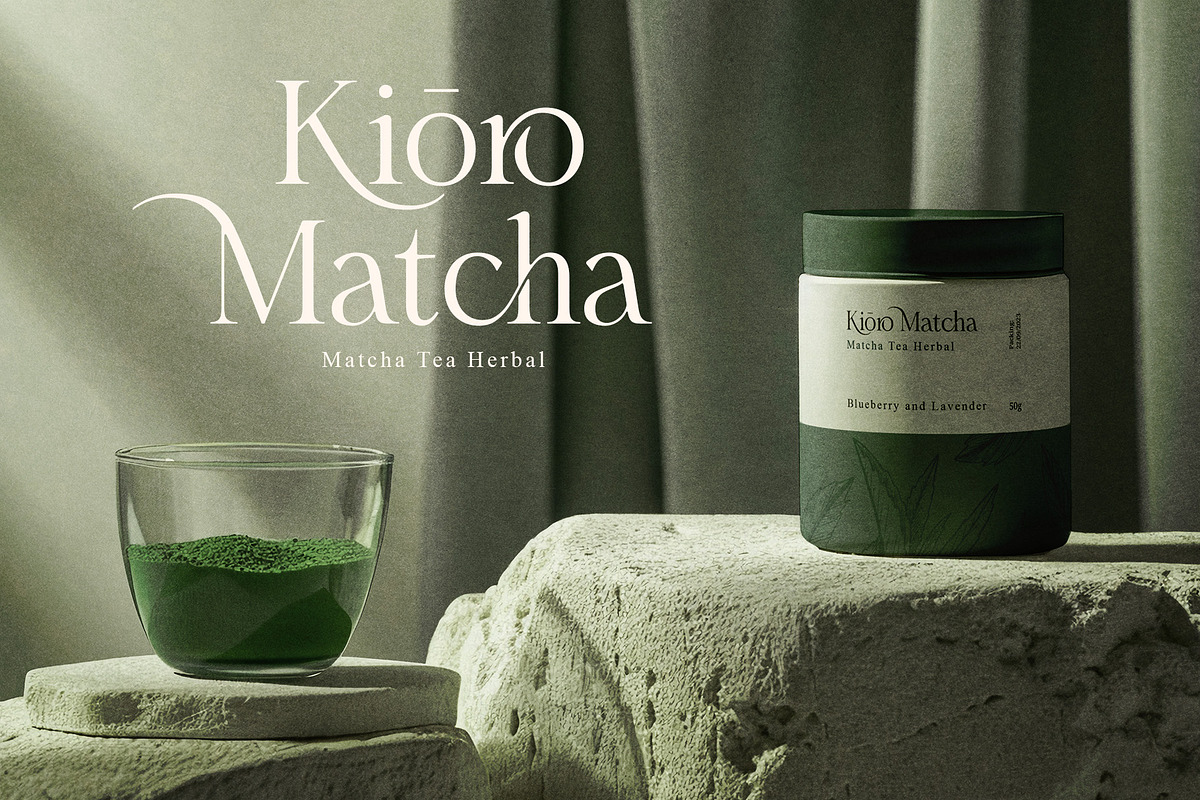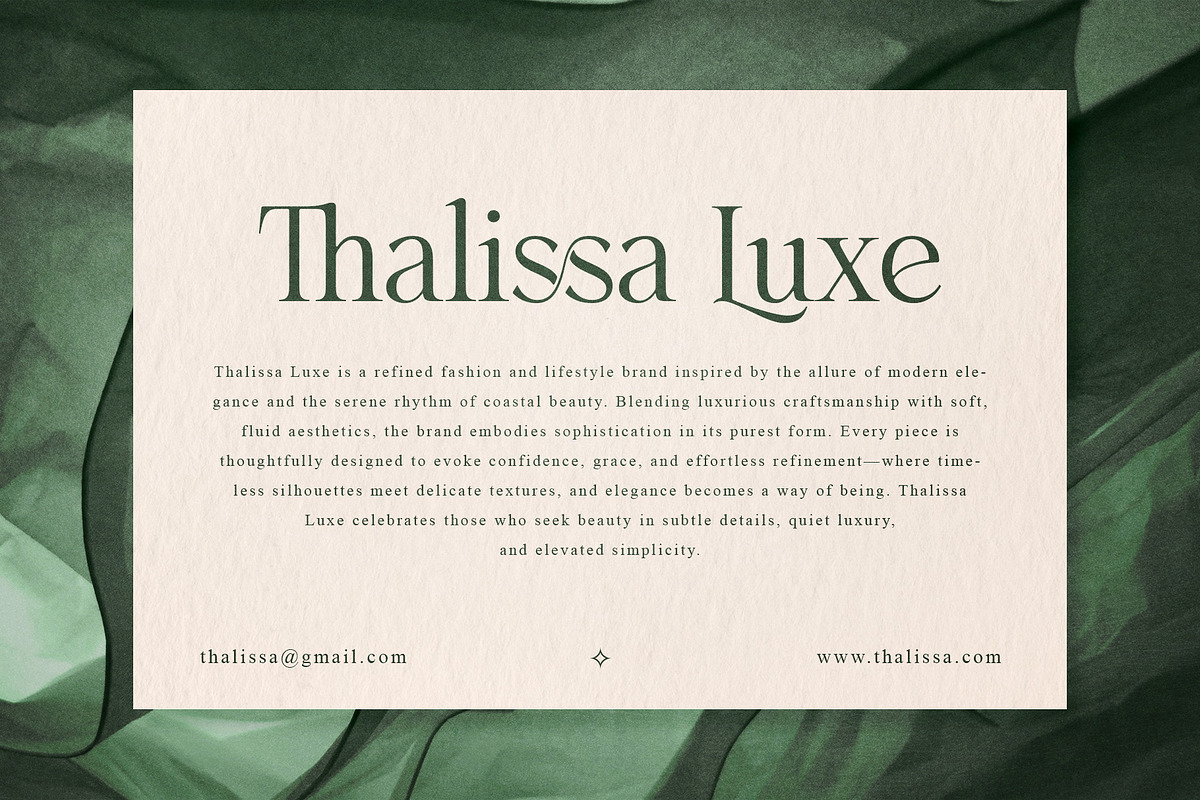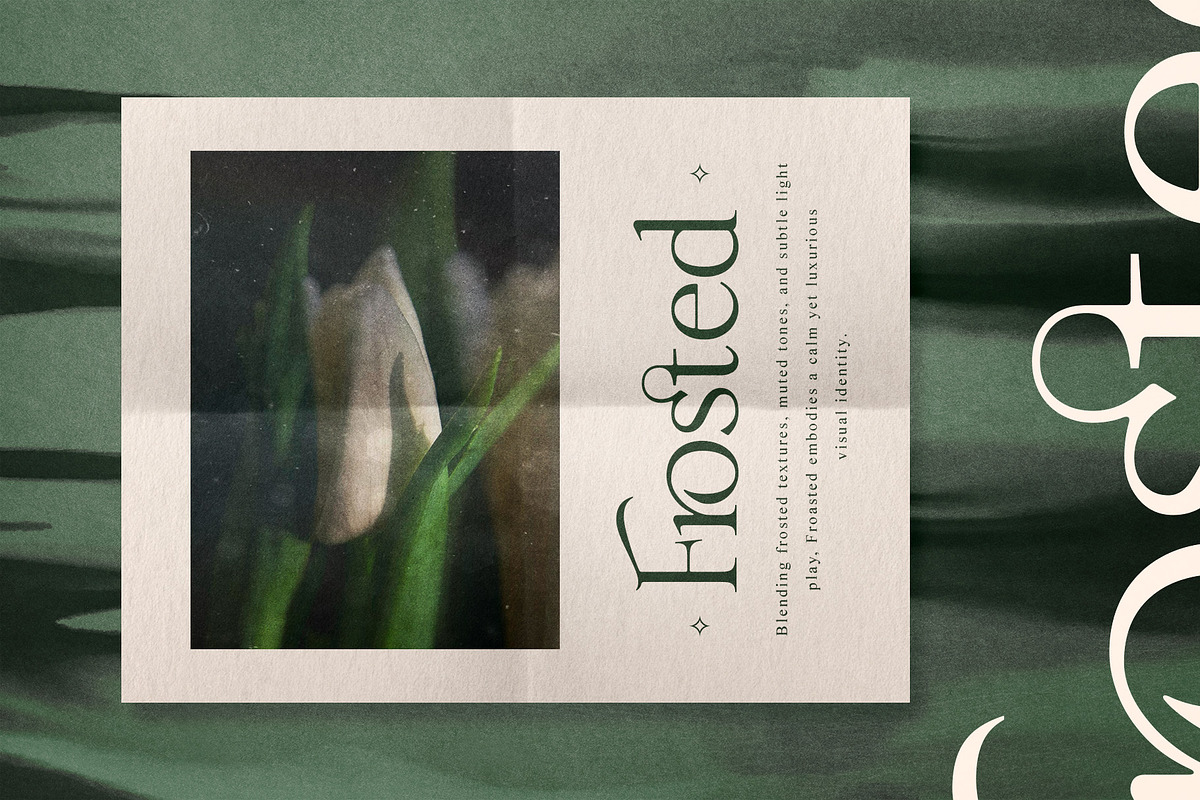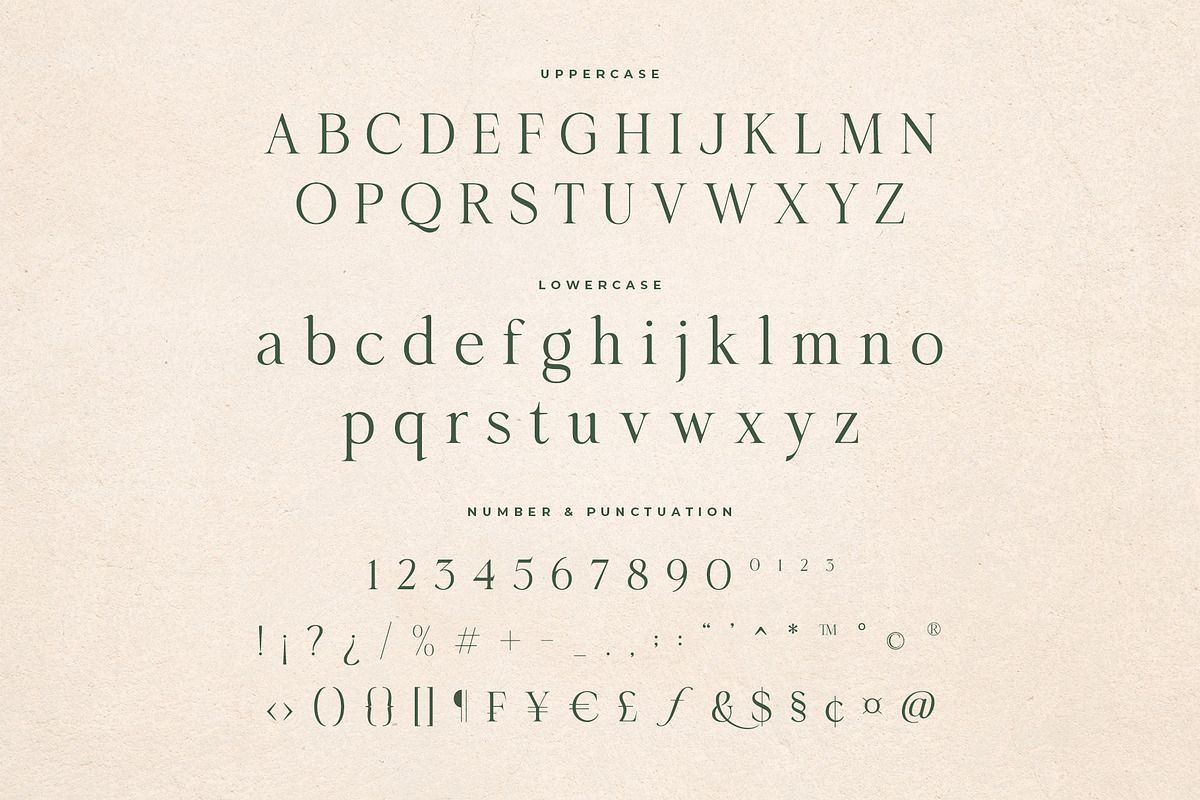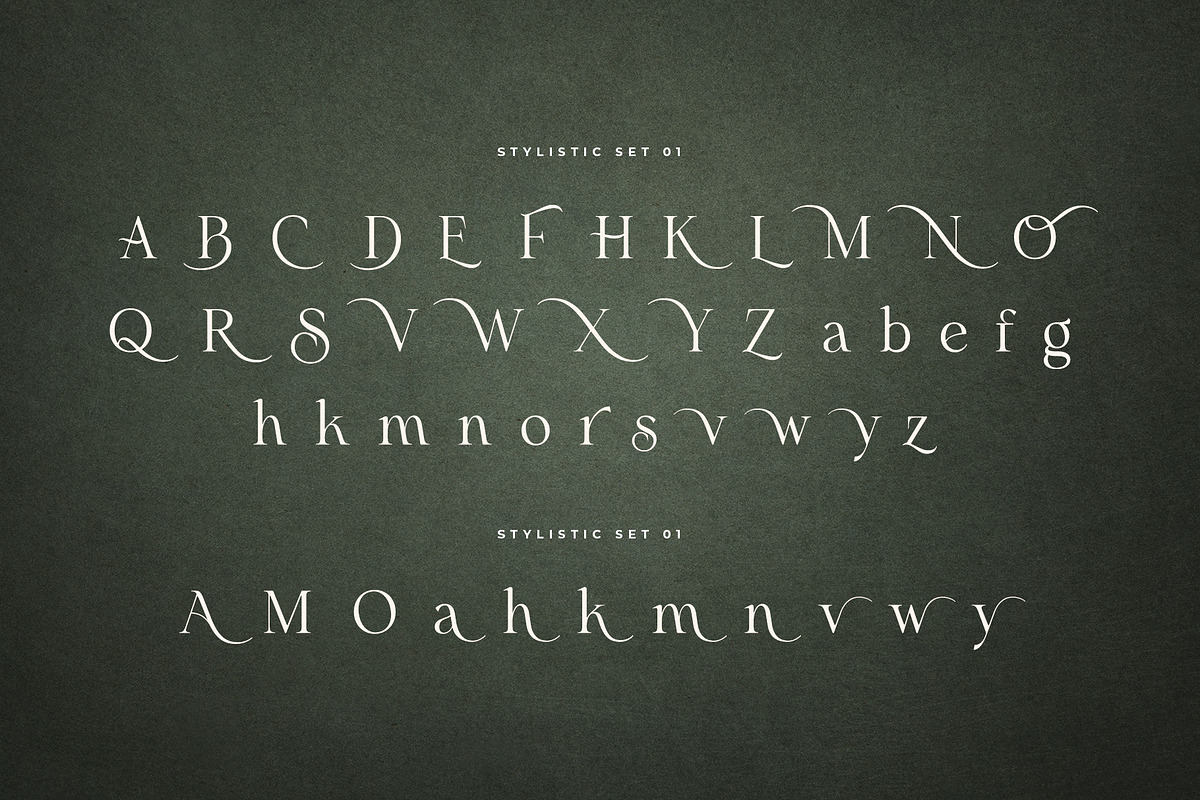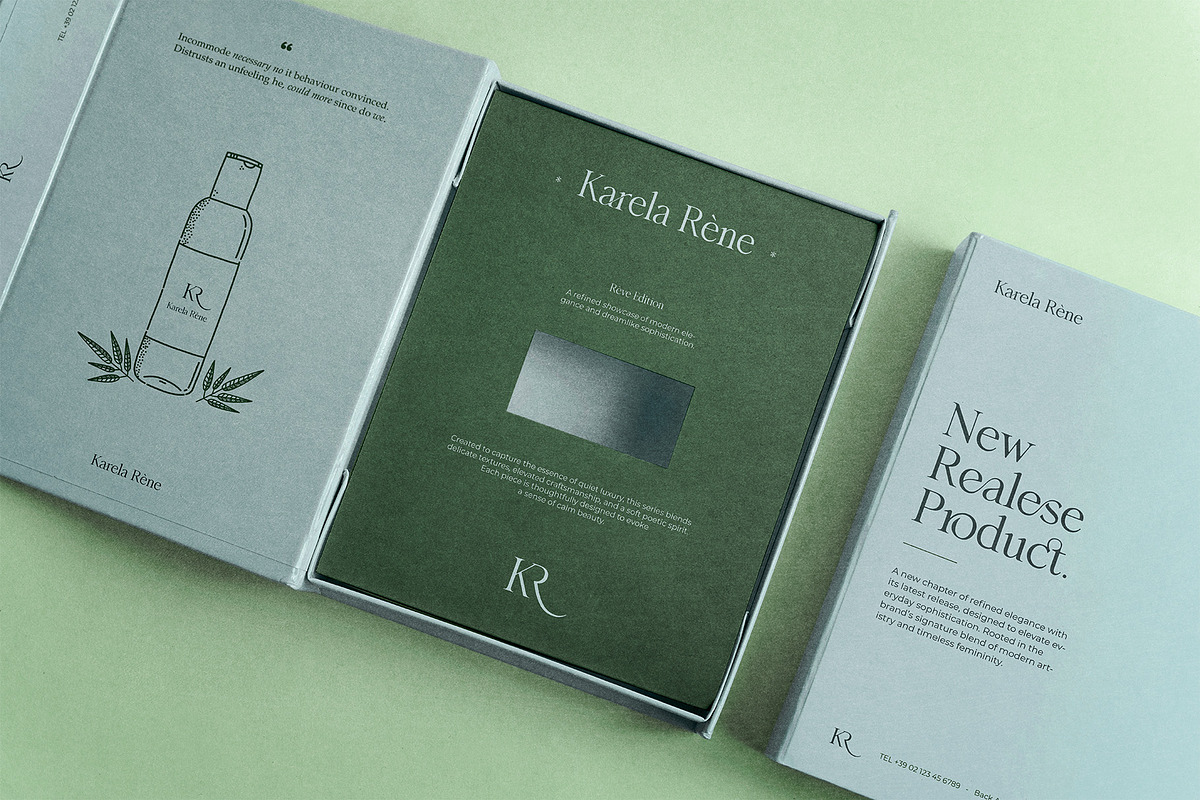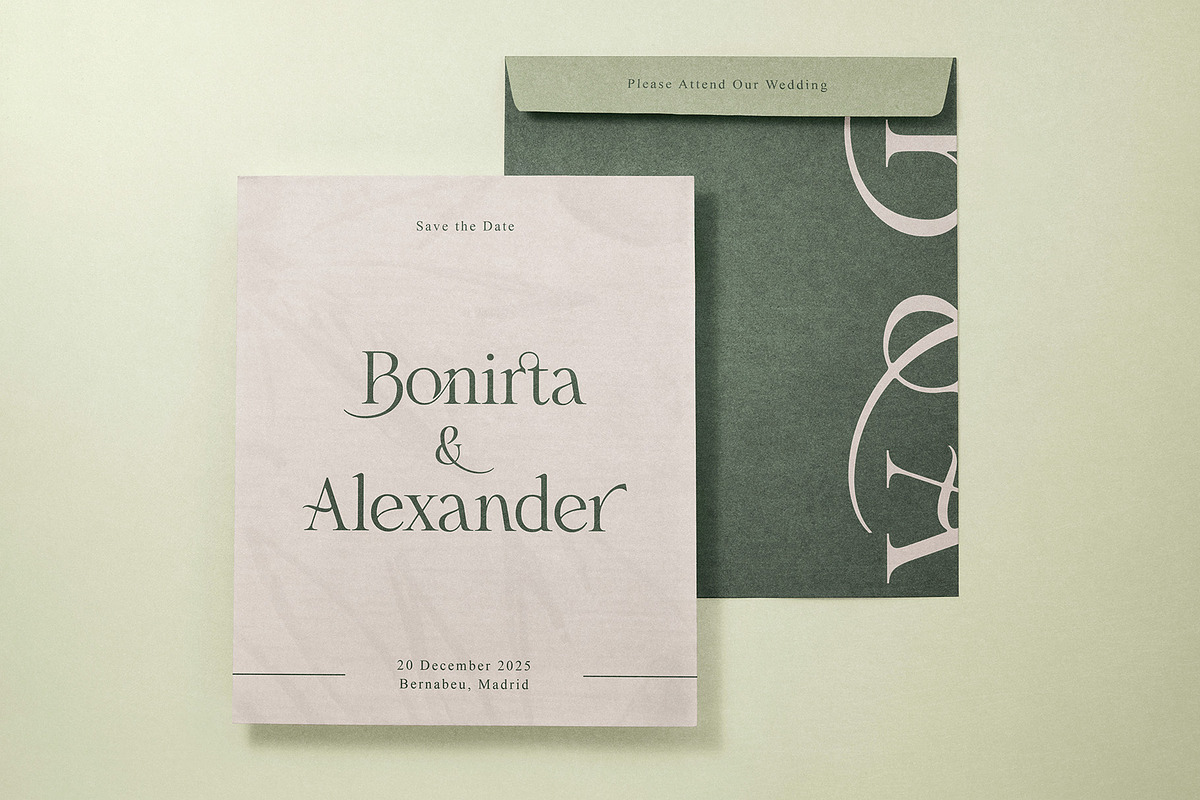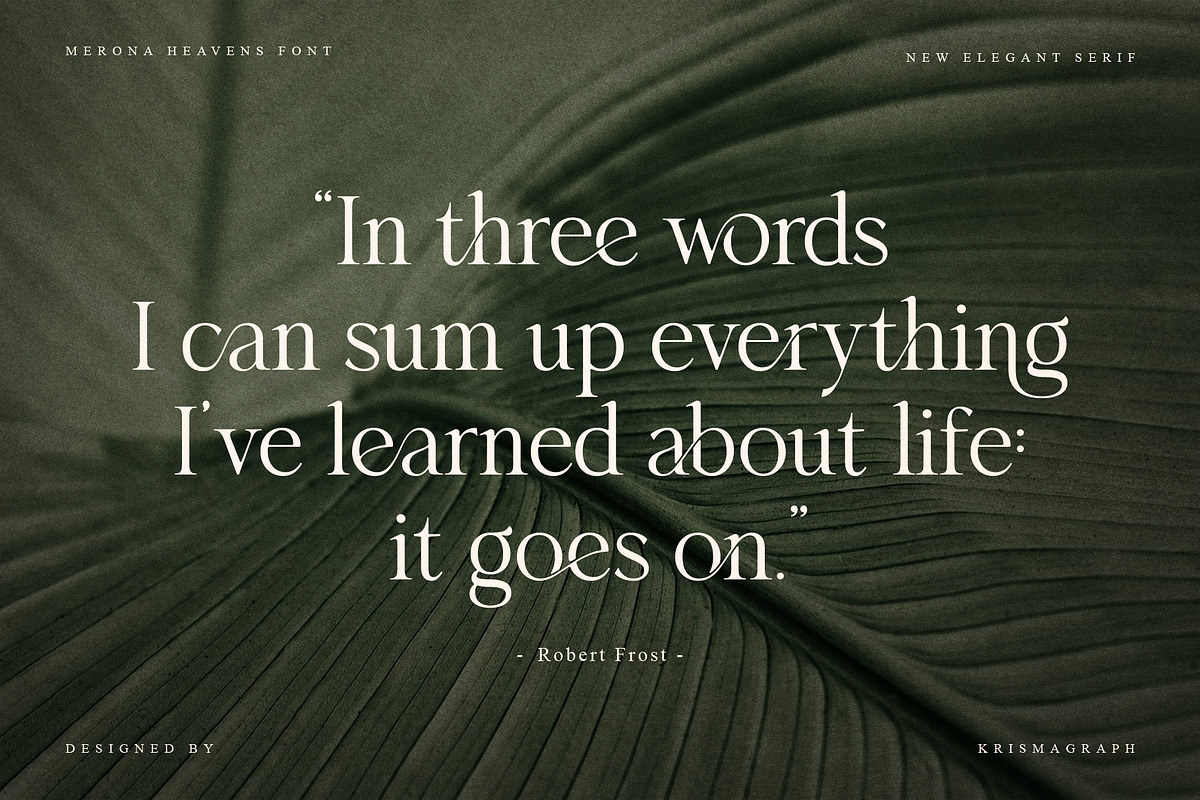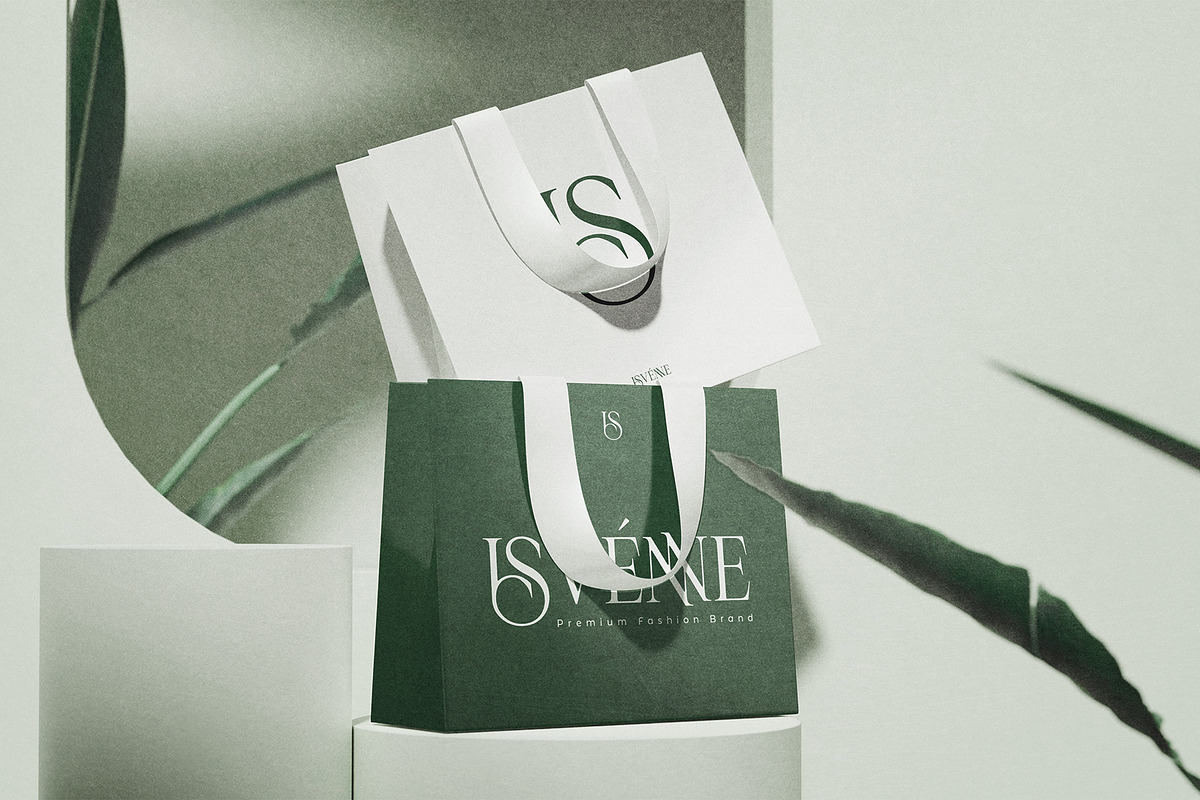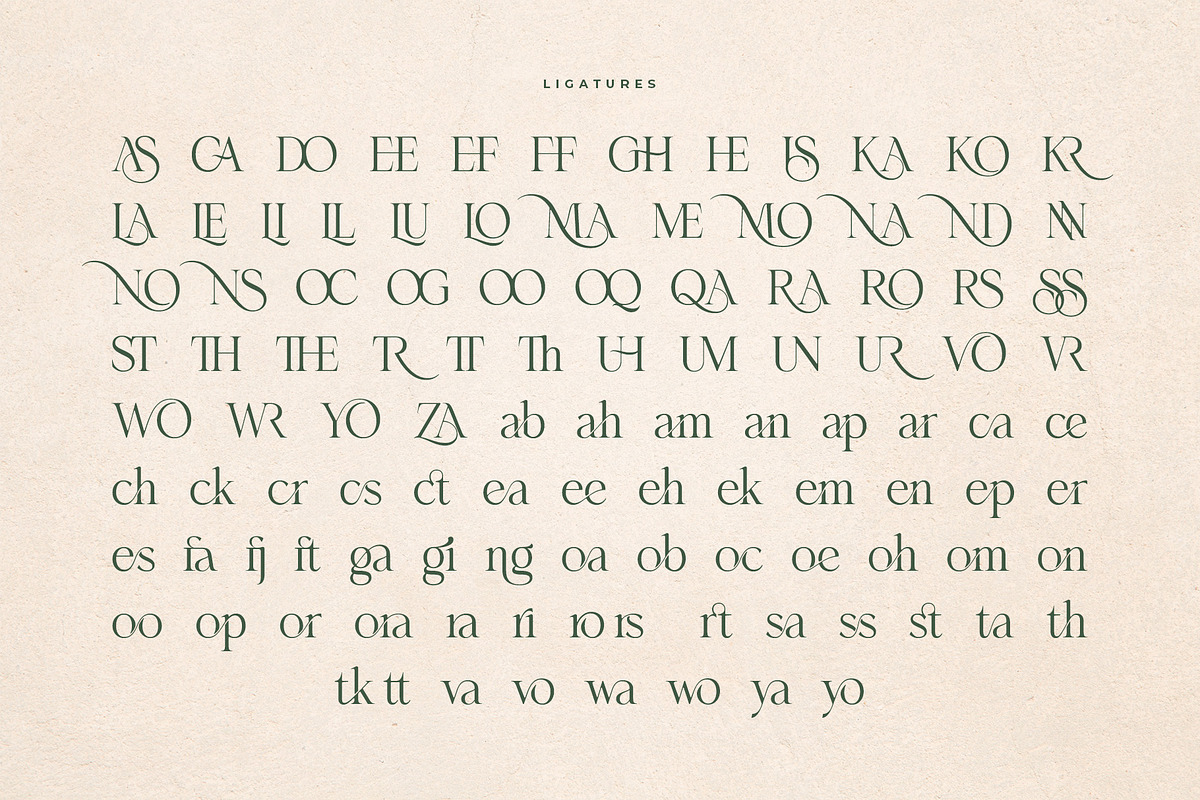
Merona Heavens | Ligature Serif
Merona Heavens is a Modern Ligature Serif Font. It's soft curves mixed with high contrast glyphs, give it a feminine and masculine quality. It comes with 112 unique ligatures and 47 alternates. Great in layout design for quotes or body copy, best used as a display for headings, logos, branding, magazines, product packaging and invitations.
- Numbers, fractions
- Punctuation and symbols